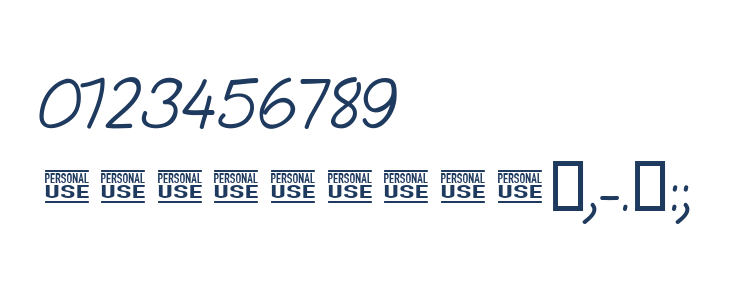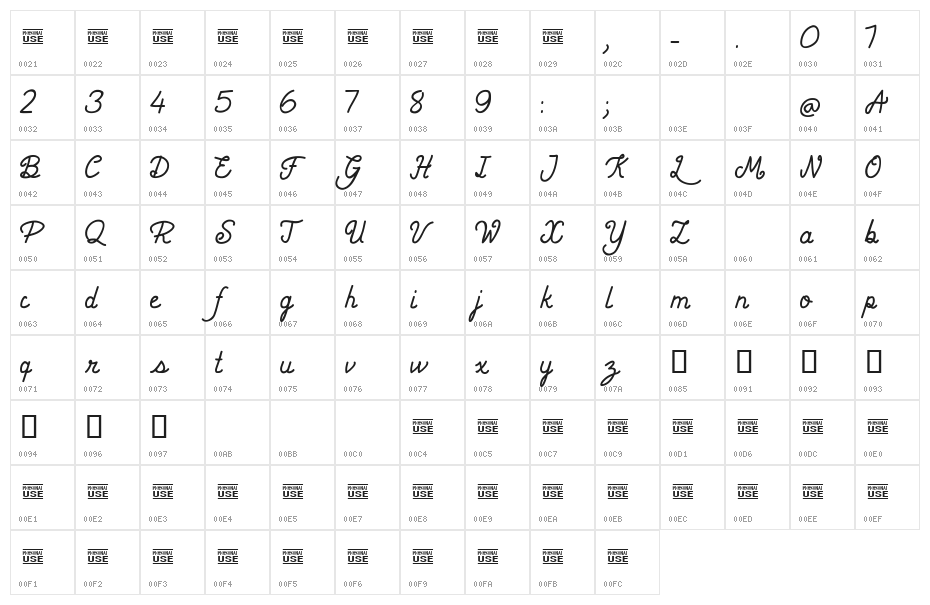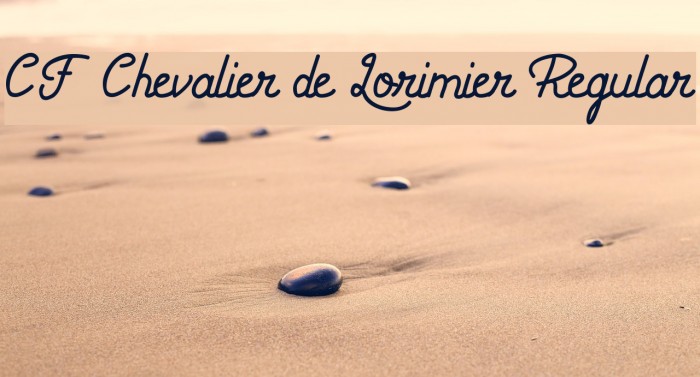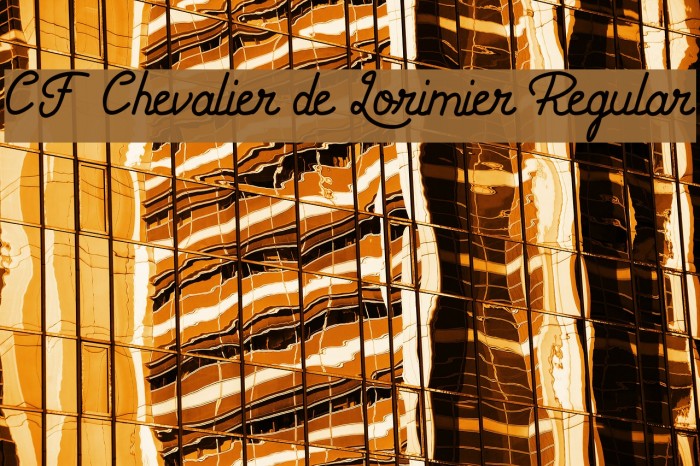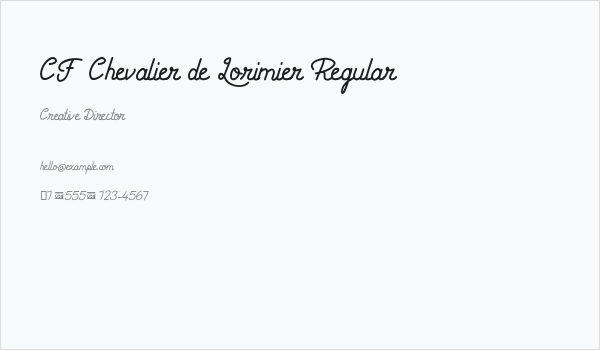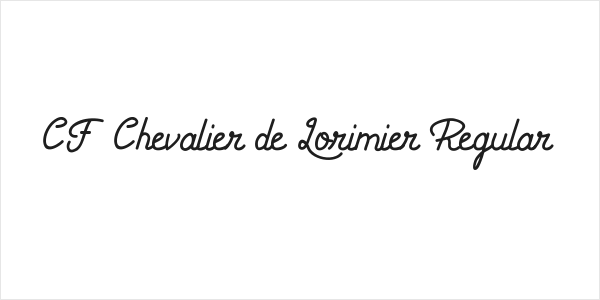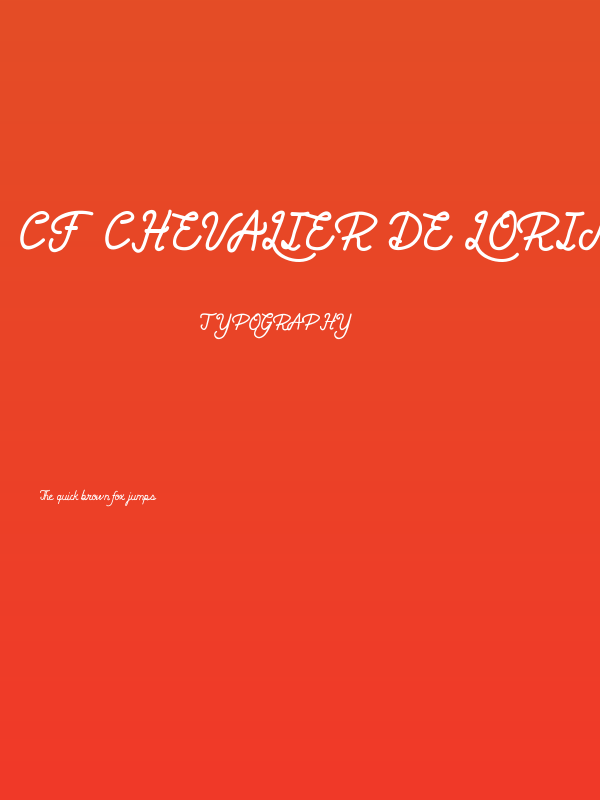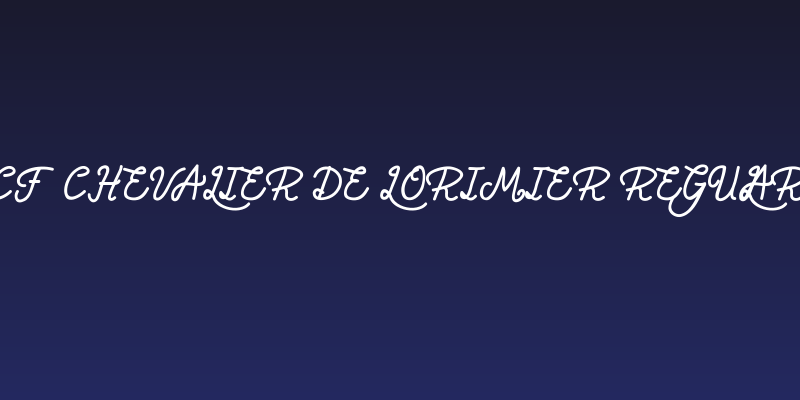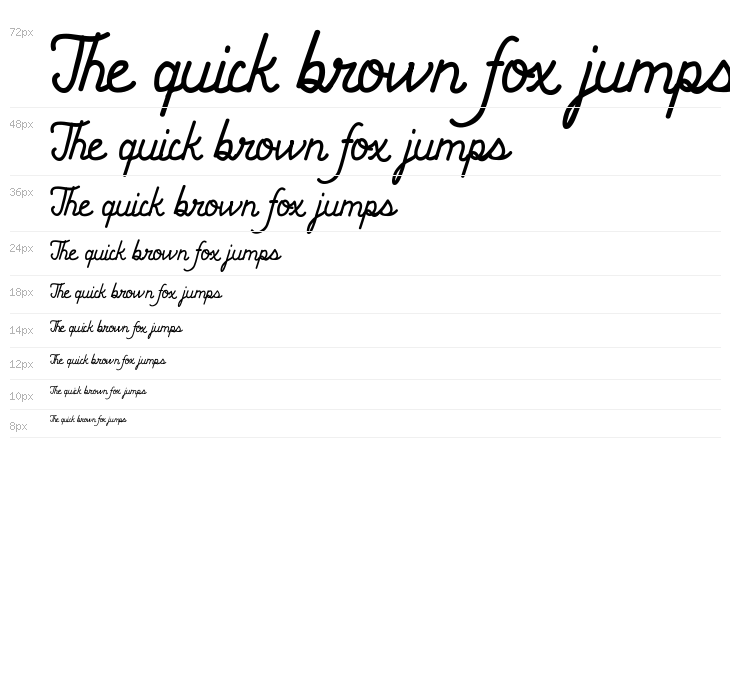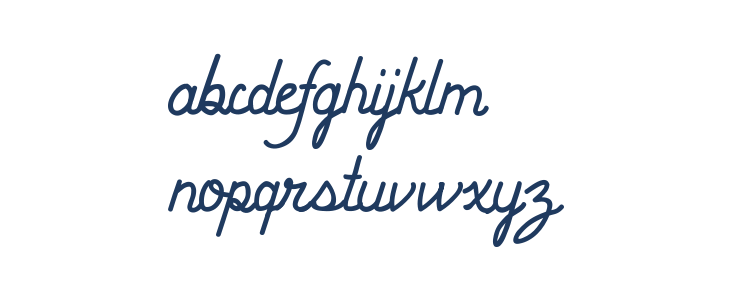
CF Chevalier de Lorimier Regular Font
CF Chevalier de Lorimier Regular Description
This font exhibits a classic script style with elegant, flowing lines that mimic the fluidity of handwriting. The uppercase letters are ornate and feature distinctive loops and curves, while the lowercase letters maintain a more subdued yet still graceful appearance. The numerals are consistent with the overall style, offering a harmonious blend of readability and decorative flair. The font's design is well-suited for projects that require a touch of sophistication and personal charm.
| Proposed Projects | Ideal for wedding invitations, greeting cards, personal branding, and elegant signage. |